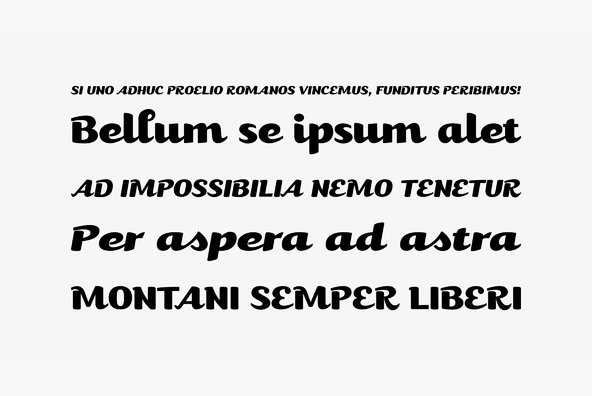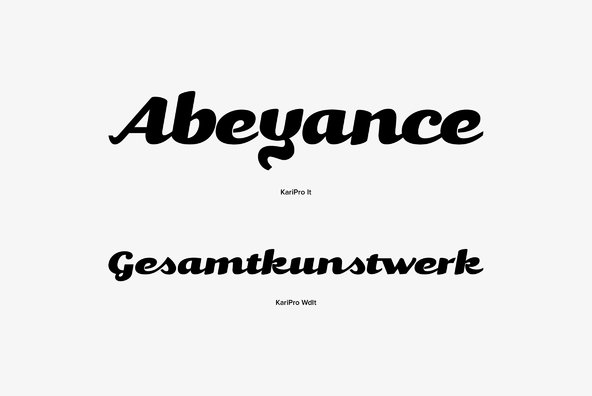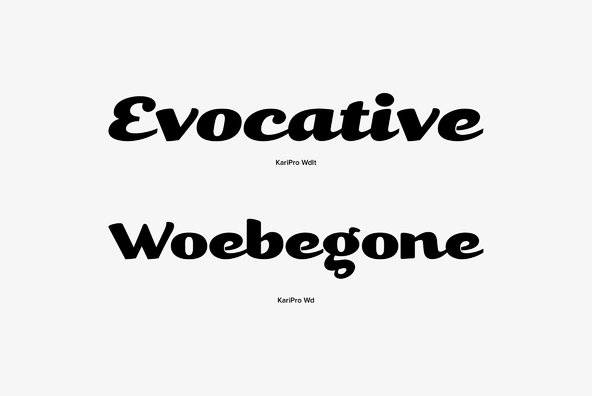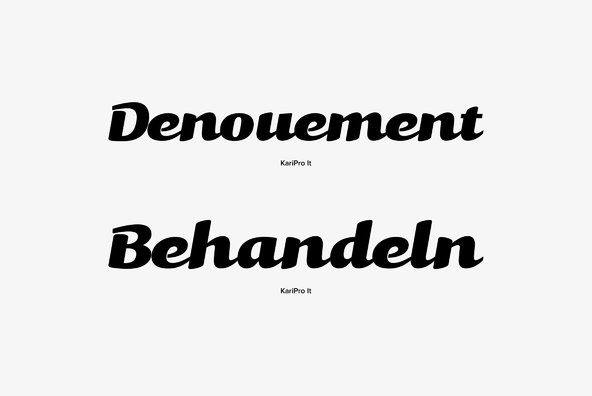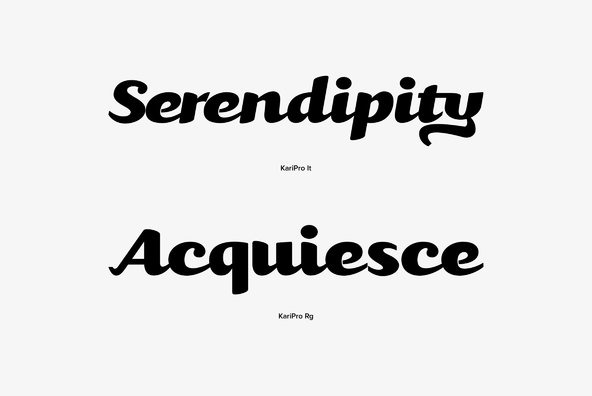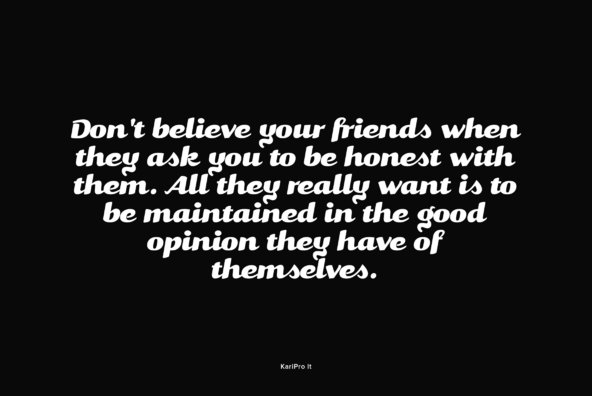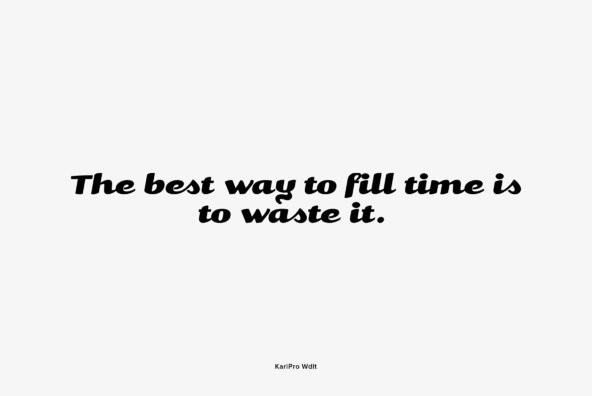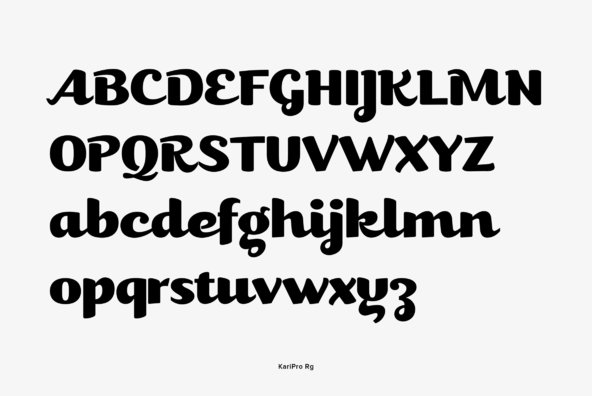
Kari evolved from an earlier design called Juicy. In Kari's case, the design ended up far curvier and loopier than its sister. The typeface went through an enhancement period where several OpenType features were incorporated into the character set - ...
Kari evolved from an earlier design called Juicy. In Kari's case, the design ended up far curvier and loopier than its sister. The typeface went through an enhancement period where several OpenType features were incorporated into the character set - allowing for far greater flexibility and expression with distinctive swashes, ligatures and alternates. In 2005 it received a Commendation in the Display Family category for the Creative Review Type Design Awards.